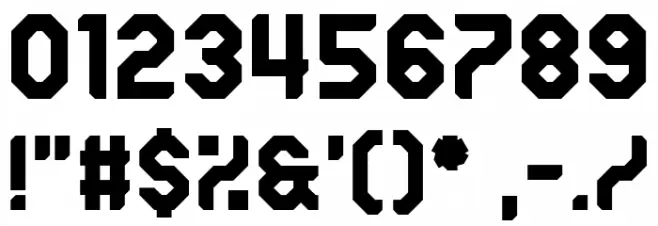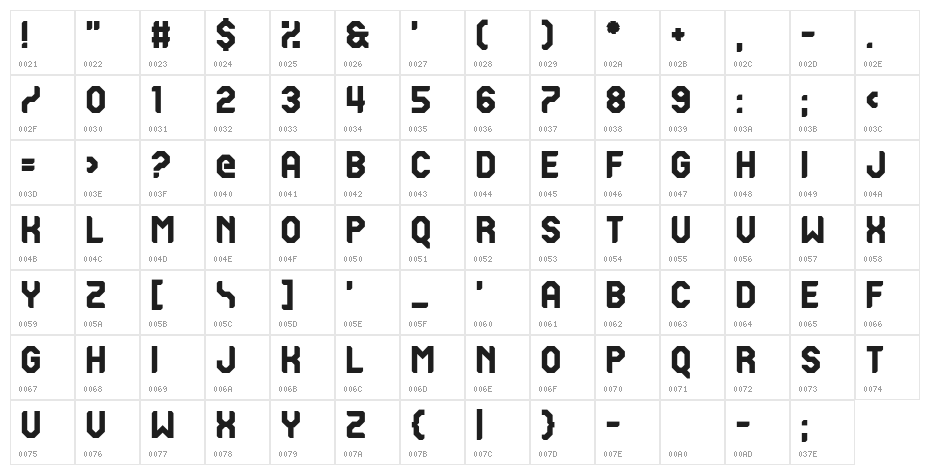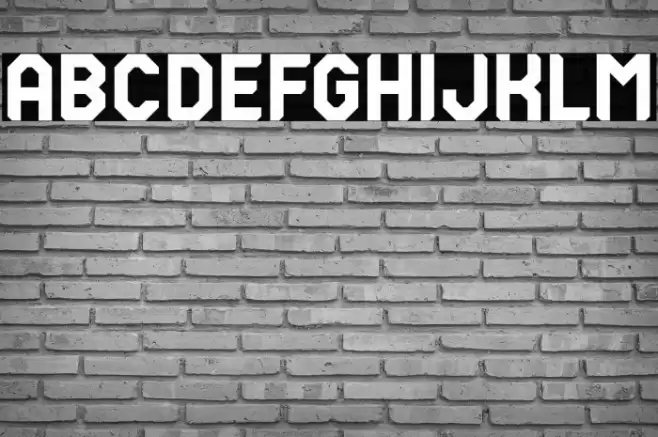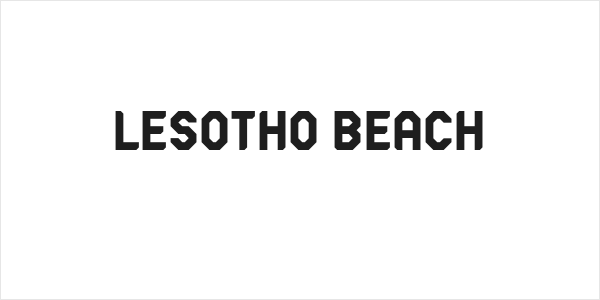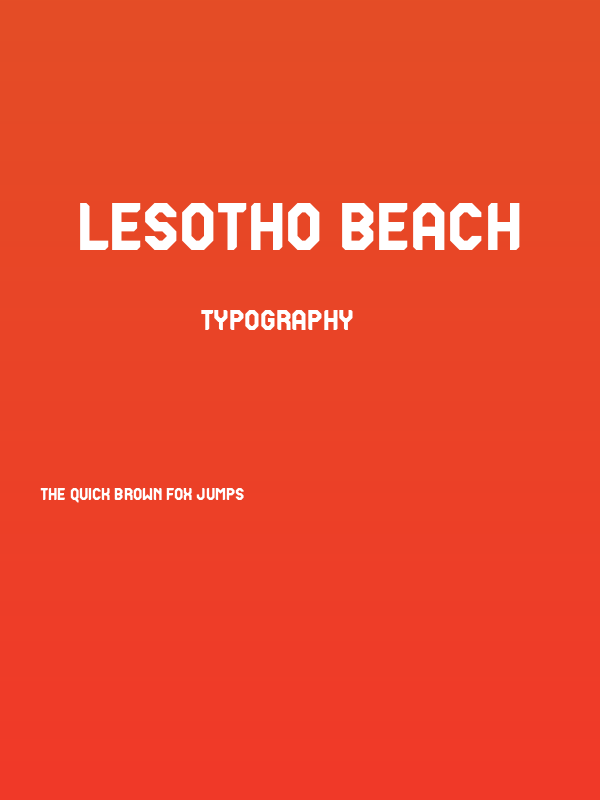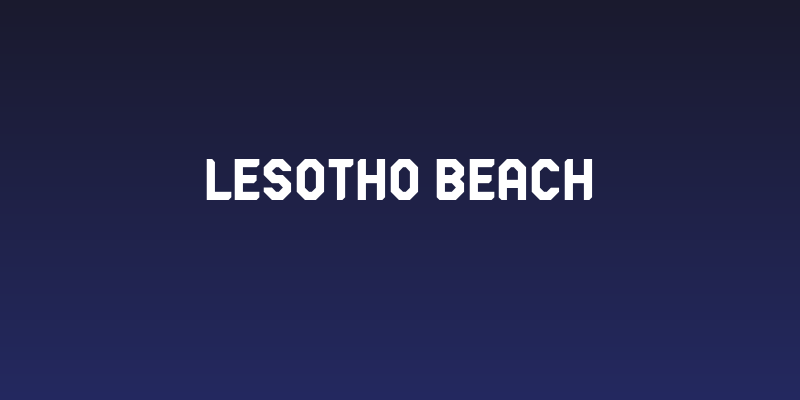
Lesotho Beach Font
Lesotho Beach Description
This font features a bold and geometric design with strong, angular lines and a distinct blocky appearance. Each character is crafted with precision, showcasing a uniform thickness that contributes to its robust and impactful look. The uppercase and lowercase letters maintain a consistent style, while the numerals and special characters complement the overall aesthetic. The font's design is reminiscent of industrial or futuristic themes, making it suitable for projects that require a modern and edgy touch. Its clear legibility and striking presence make it ideal for attention-grabbing headlines and logos.